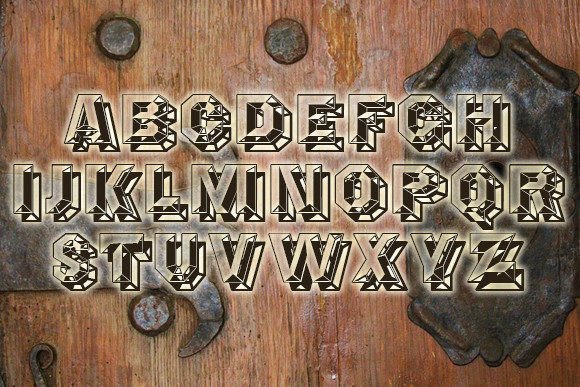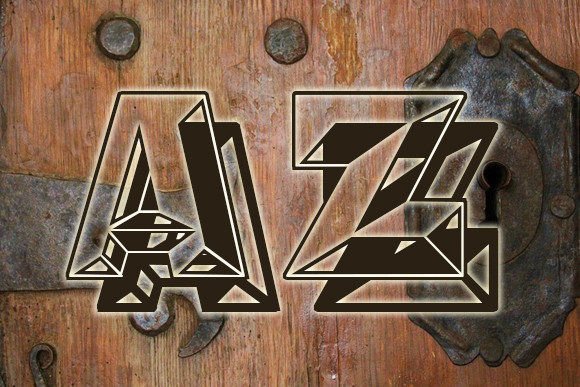
Introduction to Rust Font Font
Fonts play a crucial role in design, and the Rust Font font is a typeface that brings both character and versatility to any project. Whether you’re working on a branding project, a website, or a print design, the Rust Font font offers a unique style that can elevate your work.
Rust is rusty and unique font.
This font is rigorously crafted and remarkably detailed Add this rust-covered font to your projects and you will be speechless with the results.
Key Features of Rust Font Font
Why Choose Rust Font Font?
The Rust Font font is more than just a typeface – it’s a design tool that helps you communicate your message with style and clarity. Its unique character set and versatile design make it suitable for a wide range of applications, from elegant invitations to bold headlines.
With its carefully crafted letterforms and balanced proportions, the Rust Font font ensures readability and visual appeal across all mediums.
What makes Rust Font font special?
The Rust Font font stands out with its unique design, exceptional readability, and versatility across various design applications.